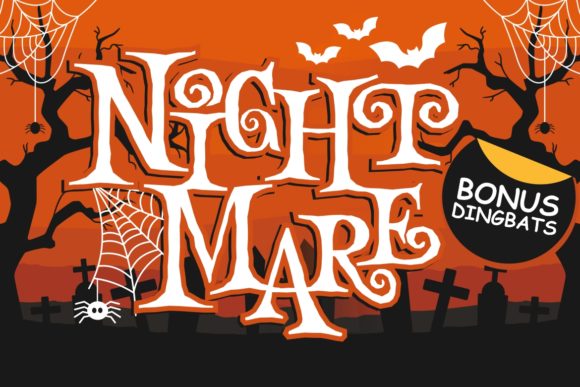
Night Mare Font: Unleashing Creativity with a Scary Horror Theme
Are you tired of using the same old fonts for your creative projects? Look no further than Night Mare Font, a fun and playful duo font that combines a display font with dingbats, all with a scary horror theme. Designed to bring your creative ideas to the highest level, Night Mare Font is sure to become a true favorite among designers, artists, and writers.
What is Night Mare Font?
Night Mare Font is a unique and masterfully designed font that consists of two parts: a display font and a dingbat font. The display font features bold, playful, and scary lettering, perfect for headlines, titles, and attention-grabbing text. The dingbat font, on the other hand, offers a range of horror-themed icons and symbols, such as skulls, bats, and spiders, that can be used to add a touch of darkness and whimsy to your designs.
Features of Night Mare Font
- Unique and playful design: Night Mare Font boasts a one-of-a-kind design that is both scary and fun, making it perfect for horror-themed projects or for adding a touch of edginess to your designs.
- Duo font: The font comes with two parts: a display font and a dingbat font, offering a range of creative possibilities.
- Masterfully designed: The font has been carefully crafted to ensure that it is both visually appealing and highly legible.
- Horror theme: The font’s scary horror theme is perfect for Halloween-themed projects, horror movies, or for adding a touch of darkness to your designs.
- High-quality: Night Mare Font is a high-quality font that is sure to impress, with clean lines, precise curves, and a professional finish.
Uses of Night Mare Font
Night Mare Font is a versatile font that can be used for a wide range of creative projects, including:
- Horror movies and TV shows: The font’s scary horror theme makes it perfect for horror movies, TV shows, and other spooky projects.
- Halloween-themed projects: Night Mare Font is ideal for Halloween-themed projects, such as party invitations, decorations, and costumes.
- Graphic design: The font can be used for a range of graphic design projects, such as posters, flyers, and brochures.
- Digital art: Night Mare Font can be used to add a touch of horror and whimsy to digital art projects, such as illustrations and paintings.
- Web design: The font can be used for web design projects, such as creating a spooky and atmospheric website for a horror-themed business or event.
Benefits of Using Night Mare Font
Using Night Mare Font can bring a range of benefits to your creative projects, including:
- Unique and eye-catching designs: The font’s playful and scary design is sure to grab attention and make your designs stand out.
- Increased creativity: Night Mare Font’s horror theme and dingbat font offer a range of creative possibilities, allowing you to experiment and try new things.
- Professional finish: The font’s high-quality design ensures that your projects will have a professional finish, perfect for businesses and individuals looking to make a strong impression.
Tips for Using Night Mare Font
Here are some tips for getting the most out of Night Mare Font:
- Experiment with different sizes and colors: The font’s bold design works well in a range of sizes and colors, so don’t be afraid to experiment and find the perfect combination for your project.
- Use the dingbat font to add visual interest: The dingbat font offers a range of horror-themed icons and symbols that can be used to add visual interest and depth to your designs.
- Pair with other fonts: Night Mare Font can be paired with other fonts to create a unique and eye-catching design.
- Use for headlines and titles: The font’s bold design makes it perfect for headlines and titles, where you want to grab attention and make a strong impression.
Night Mare Font is a fun and playful duo font that combines a display font with dingbats, all with a scary horror theme. With its unique and masterfully designed font, Night Mare Font is sure to become a true favorite among designers, artists, and writers. Whether you’re working on a horror movie, a Halloween-themed project, or simply want to add a touch of edginess to your designs, Night Mare Font is the perfect choice.